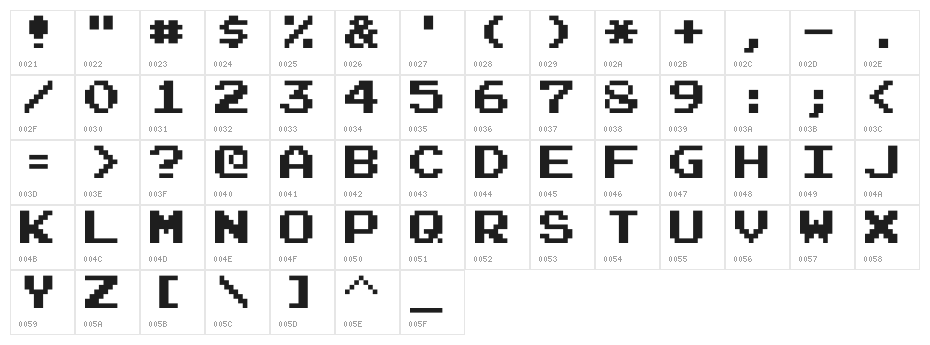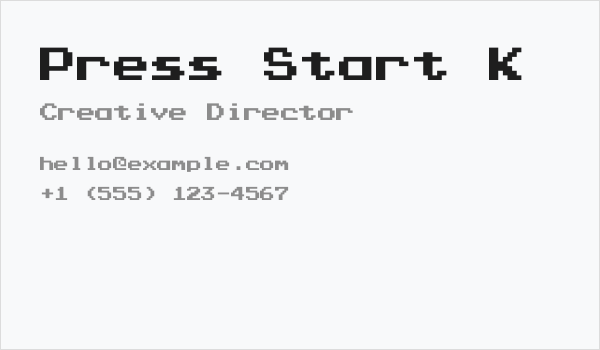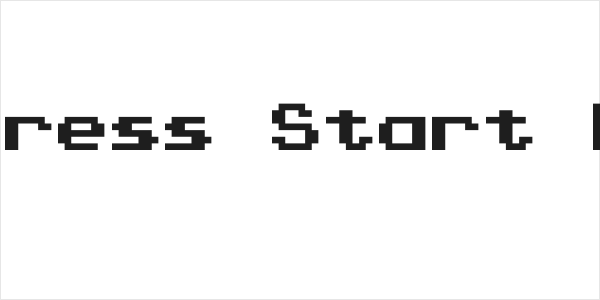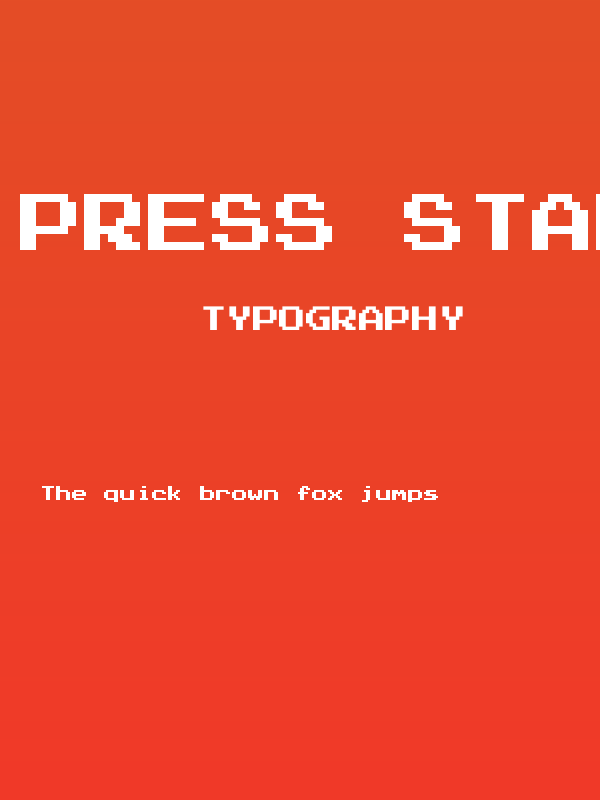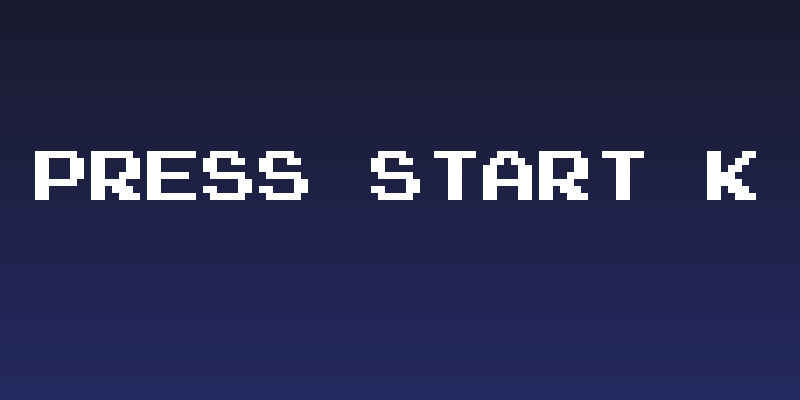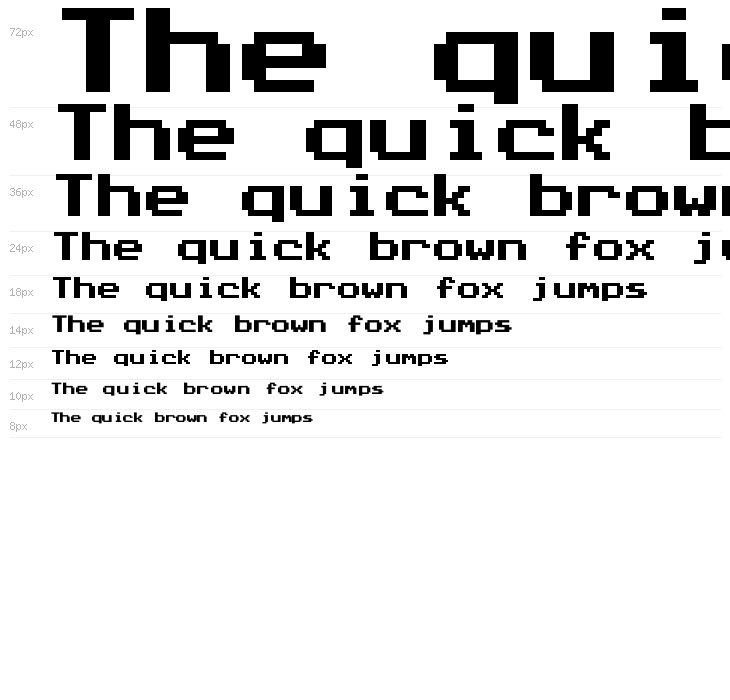
Press Start K Font
Press Start K Description
This font is a pixelated, monospaced typeface that evokes a retro, 8-bit video game aesthetic. Each character is composed of a grid of square pixels, giving it a blocky and geometric appearance. The uniformity in width and height across all characters contributes to a consistent and structured look. The font is highly legible at small sizes, making it ideal for digital displays and interfaces that require a nostalgic or vintage gaming feel. Its simplicity and clarity make it suitable for both uppercase and lowercase text, as well as numbers and special characters.
| Use Case | Headlines, Logos, Digital displays |
| Proposed Projects | Ideal for retro video game designs, digital displays, tech-themed posters, and nostalgic branding. |